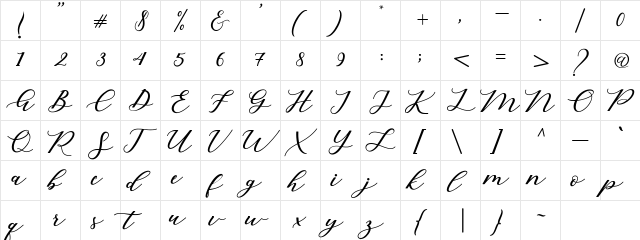
Cintya Script Regular
| Foundry | Ximen Studio |
Design Context for Cintya Script Typeface
Cintya Script flows with the natural rhythm of handwritten lettering, making it ideal for designs that call for warmth and personal expression.